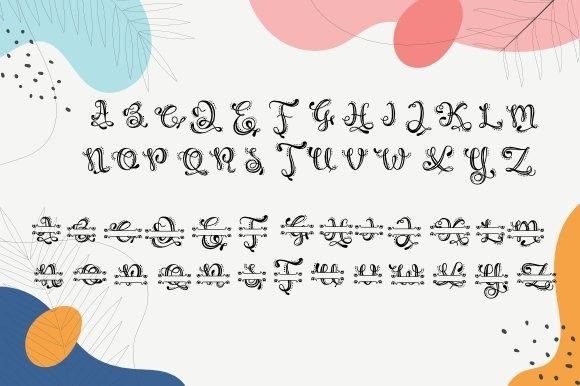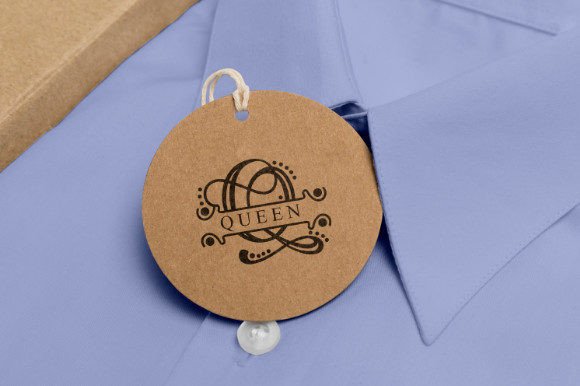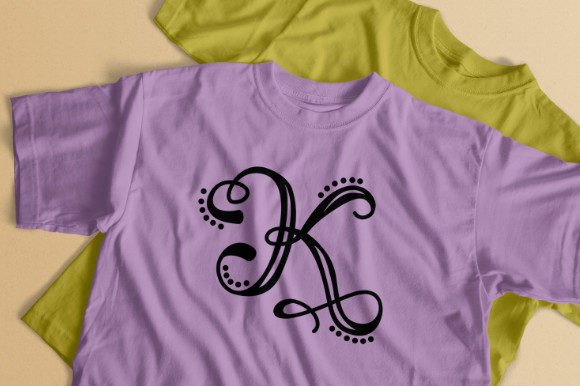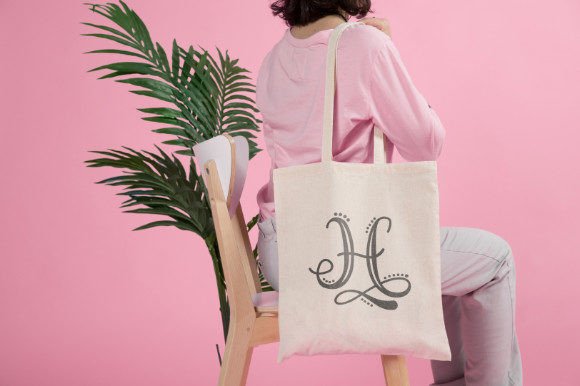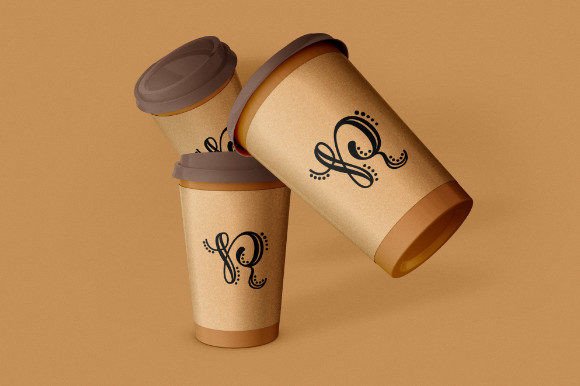
Introduction to Retro Round Monogram Font
Remember the thrill of designing a project that just clicks? You’re browsing through fonts, and suddenly, a perfect match appears. It’s like finding that one special ingredient that elevates your entire dish. For many designers, this moment is what makes all the hard work worth it. For me, it was when I stumbled upon the Retro Round Monogram Font. Its unique charm and timeless appeal had me hooked from the very start.
As a valuable design resource, the Retro Round Monogram Font offers a refreshing take on classic typography. Its high quality and versatility make it an ideal choice for a wide range of creative projects, from elegant invitations to playful branding materials. Plus, its transparent background allows for seamless integration with any design element. Whether you’re looking for a free download or a premium font, the Retro Round Monogram Font is sure to become a trusted companion in your design journey.
Key Features of Retro Round Monogram Font
- Unique, hand-drawn design with a touch of nostalgia, perfect for creative projects.
- Transparent background, allowing for easy layering and customization in your design projects.
- Perfect for crafting unique monograms, logos, and graphics for various creative projects, such as wedding invitations, business cards, and social media graphics.
Honest Review: Retro Round Monogram Font
I recently had the chance to work with the Retro Round Monogram Font, and I must say it’s a fantastic addition to any designer’s arsenal. This high-quality font is perfect for any creative project that requires a touch of nostalgia and elegance.
- Transparent background: This feature allows for seamless integration with any background, giving designers complete control over the final look.
- Easy to use: The font is incredibly easy to use, even for designers who are new to working with monogram fonts.
- Limited customization options: While the font is high-quality, there are limited options for customization, which may be a drawback for some designers.
- Not ideal for complex text: Due to its rounded design, this font may not be the best choice for complex or dense text.
Overall, I’m impressed with the Retro Round Monogram Font. It’s a valuable design resource that’s perfect for any creative project. With its high-quality design and easy-to-use interface, it’s a must-have for designers of all levels.
Experiment with different font sizes, colors, and arrangements to create visually appealing designs. You can also combine the Retro Round Monogram Font with other design elements to add depth and interest to your creative project.
The Retro Round Monogram Font is ideal for various creative projects, including invitations, social media graphics, and branding materials. Its high-quality design and transparent background make it a versatile design resource for a range of applications.